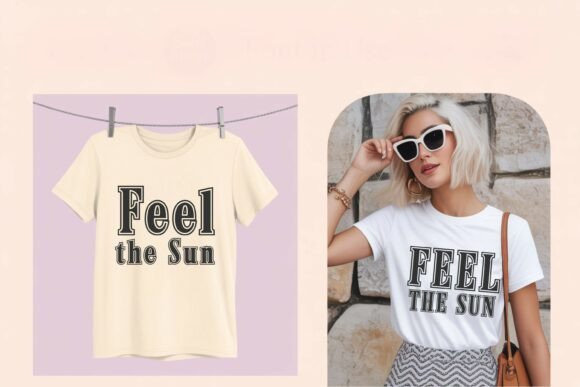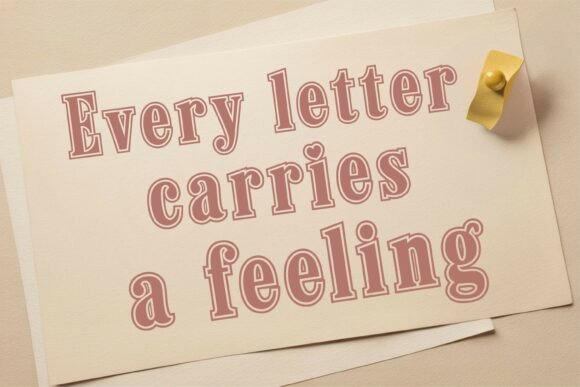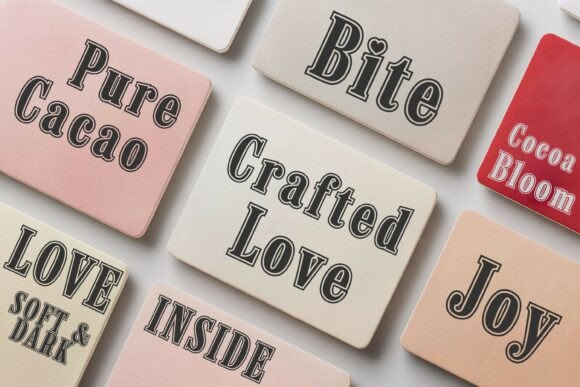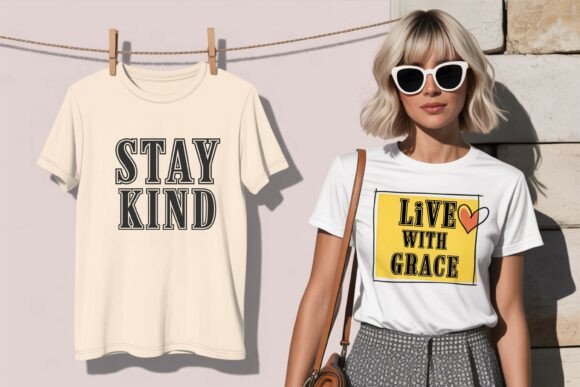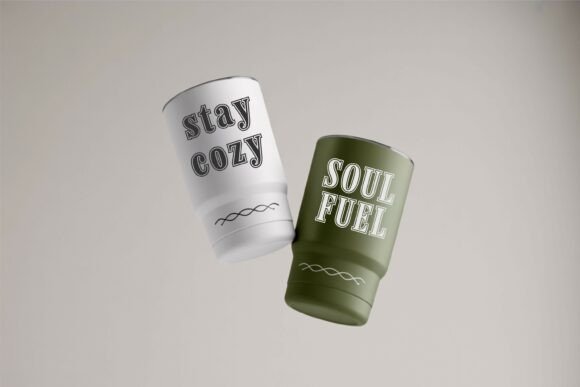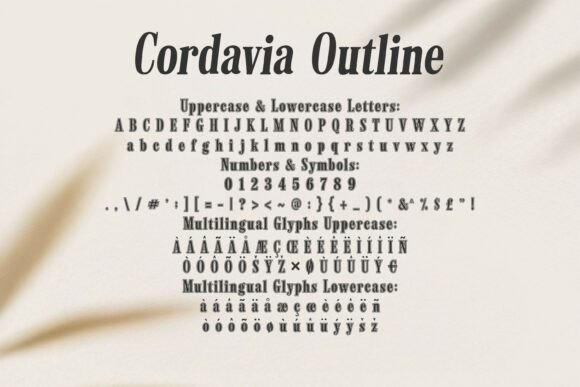
Cordavia Outline Font: Elevate Your Designs with a Charming Slab Serif
Are you looking for a font that adds a touch of personality and warmth to your designs? Look no further than the Cordavia Outline font. This charming slab serif font boasts a unique outline style and playful character details that make it perfect for creative projects. With its sweet heart-shaped glyphs and clean outlines, Cordavia Outline brings a bold yet elegant look that’s both classic and modern.
What Makes Cordavia Outline Special?
Cordavia Outline is more than just a font – it’s a design statement. Its unique outline style and slab serif structure give it a distinctive look that’s sure to grab attention. The font’s playful character details, including sweet heart-shaped glyphs, add a touch of whimsy and personality to every word. Whether you’re designing for print or digital, Cordavia Outline is the perfect choice for crafters, designers, and anyone looking to create eye-catching visuals.
Perfect for Creative Designs
Cordavia Outline is ideal for a wide range of creative projects, from T-shirts and mugs to posters, cards, and branding elements. Its versatility and charm make it perfect for:
- Fashion and apparel design
- Stationery and card design
- Branding and packaging
- Digital graphics and social media assets
- Cricut and Silhouette projects
Multilingual Support and Character Set
Cordavia Outline is designed to be versatile and accessible. The font includes:
- Full set of uppercase and lowercase letters
- Numbers and symbols
- Multilingual support for a wide range of languages
This extensive character set makes Cordavia Outline perfect for designers and crafters working on projects that require a high level of customization and flexibility.
Why Choose Cordavia Outline?
With so many fonts to choose from, why choose Cordavia Outline? Here are just a few reasons:
- Unique outline style and playful character details
- Multilingual support and extensive character set
- Perfect for both print and digital projects
Cordavia Outline is a charming and expressive slab serif font that’s perfect for designers and crafters looking to add a touch of personality and warmth to their designs. With its unique outline style, playful character details, and extensive character set, Cordavia Outline is versatile and accessible. Whether you’re designing for print or digital, Cordavia Outline is the perfect choice for creative projects. Try it today and elevate your designs to the next level!